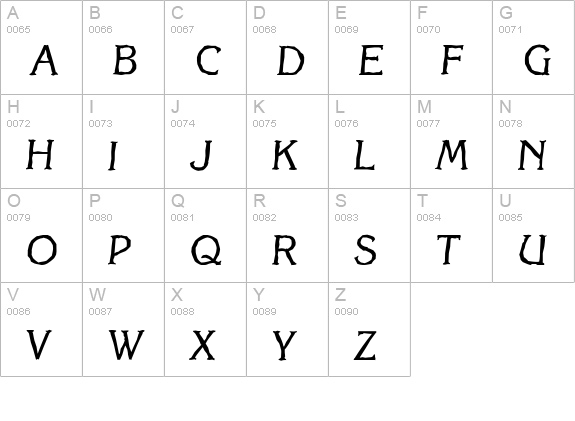
KorinthAntique-Italic is a distinctive, italic variant in the KorinthAntique typeface family \xE2\x80\x94 well suited to design and typography projects.
KorinthAntique-Italic is a stunning and elegant font that exudes timeless sophistication. With its delicate and graceful curves, this italic typeface adds a touch of luxury to any design project. Perfect for adding a touch of class to invitations, branding, and editorial designs, KorinthAntique-Italic is a versatile font that can elevate any creative piece. What's even better is that KorinthAntique-Italic is available for free download at FontsMarket.com. This means that you can easily access this exquisite font without any cost, making it a valuable addition to your font collection. Don't miss out on the opportunity to enhance your designs with the beauty and charm of KorinthAntique-Italic. Download it today and let your creativity shine!